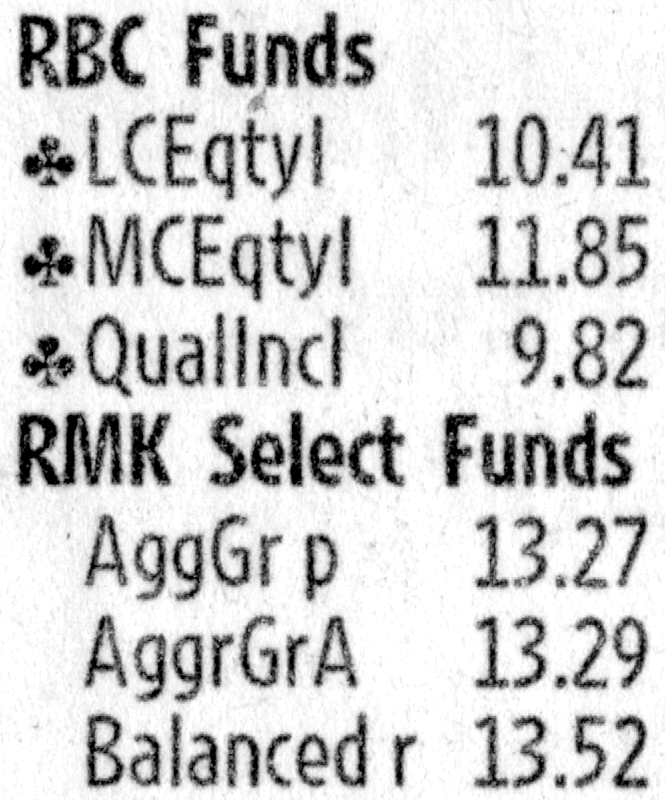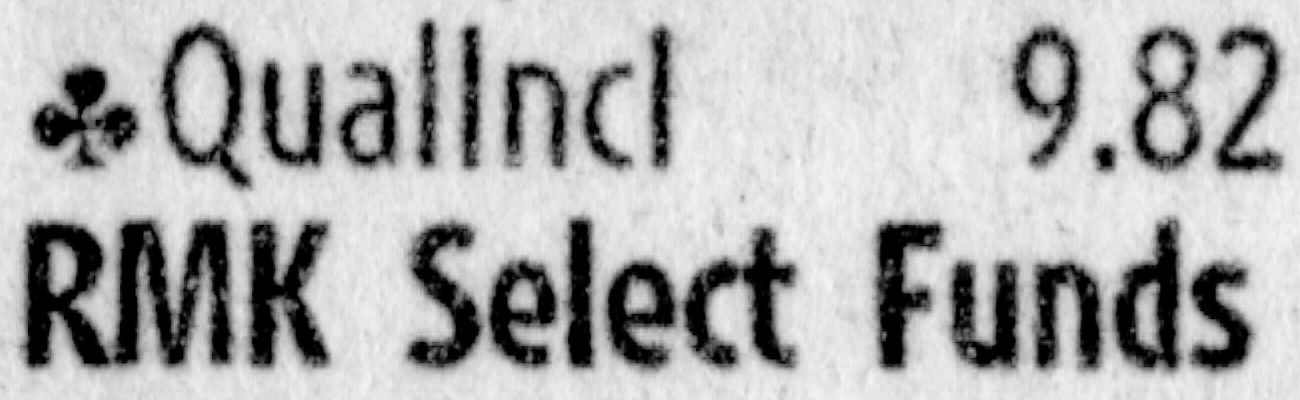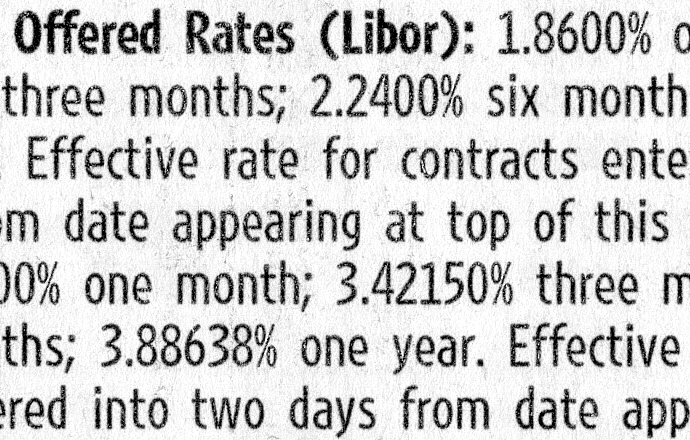
WALL STREET JOURNAL
Pick up a copy of the Wall Street Journal tomorrow, early, before it sells out. WSJ is supposed to unveil its redesign April 9.
This paper is known as a 'financial' newspaper, but less known is the fact that WSJ has the best daily feature writing in the country on a consistent basis.
Now, maybe design to match.
I was worried that WSJ was going to become another horrid McPaper, the USA Today. But then I read that the redesign is being done by Garcia Media.
Can the Typophiles have an exclusive sneak peek today to build some buzz?
Thanks for the heads-up! It's also helpful to own a pre-redesign issue, for comparison. Along with the press release I'd give up a few pounds for a large digital setting - mostly to measure ink gain against a hi-res scan of the actual output. Please?...
BTW, in terms of content my fav daily has gotta be The Herald Tribune.
Some of us lucky bastardos that were able to attend Jonathan and Tobias's lecture at the Walker last month got a little sneak preview ;)
Who the hell has time to read a newspaper nowadays? And who wants all those old mountains of newsprint lying around in untidy piles? I don't even have steady work, but I don't have the time or patience for newspapers. Sorry - I love print, but I've never understood the appeal of newspapers. Give me a weekly mag like The New Yorker or something like The Atlantic any day. Perhaps if I'd ever seen a beatiful paper in my life I might feel different and have some time for them.
The *type*, my man - where's the *type*?! :-)
Re: Lacava.
The IHT is one of the only sites I actually read
on screen. It's very thoughtfully done.
the typeface in question would be in the stock listings, fyi.
i guess jonathan hasn't gotten around to that press release yet. didn't see anything on typography.com.
WARNING: I wouldn't want to turn this thread into a discussion of press gain (at least not entirely so), but please allow me this digression of sorts:
> the typeface in question would be in the stock listings
Oh, good thing you told me - I almost scanned the wrong section. "Scanned?!", you ask? Well, I've been obsessed with measuring press gain in newspapers for a while now. This is partly because Nour (Patria's Armenian counterpart) is supposed to end up as the body face for a daily newspaper. Another reason is my fascination with trapping - something not usually needed but potentially very beneficial in a newspaper, *especially* for tiny type like in stock listing...
So what I would love to be able to do with TFJ's new font is to superimpose a small snippet of hi-fi outline data over a hi-res scan of actual output. A big favor to ask, maybe, but something I will do once I have the scan for you guys.
In the meantime, you can check out the following images:
A scan from my "target" newspaper, next to a rendering, with measurements:
Point size: 8
This one is not my own comparison; it's from an article by Gurtler & Mengelt in Visible Language:
Point size: they don't say.
Now, the Armenian sample clearly exhibits much more gain than any western newspaper would find itself stuck with, and even the second image is probably too drastic these days, but as long there's *some* gain, I'd like to measure it.
BTW, in case you'd like to see how bad it can get, here's a staggering overlay of Mandel's masterful Colorado font (used for phone books):
Point size: ~4
> Well, I've been obsessed with measuring press gain in newspapers for a while now.
That's not the cent sign I was thinking of; either it's different in one of the other weights, or I'm thinking of the wrong font altogether. When I get to the office tomorrow, I'll see if I can figure this out.
BJ, are you very sure of that? In my copy, the "hedcuts" for JH and TFJ are correct.